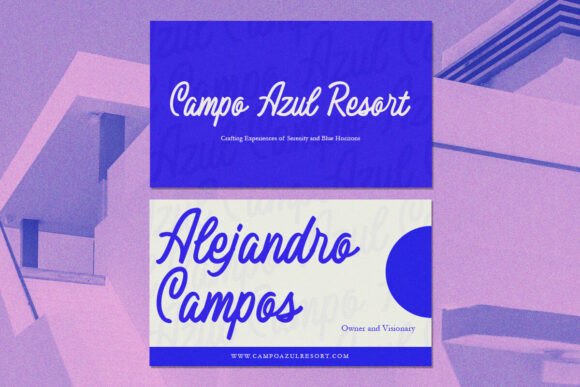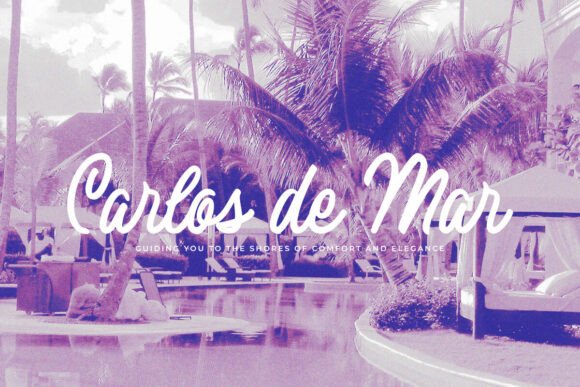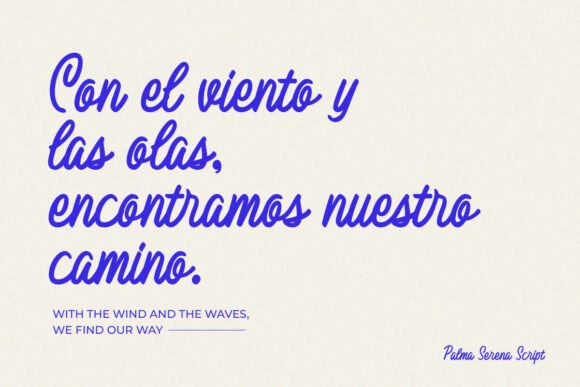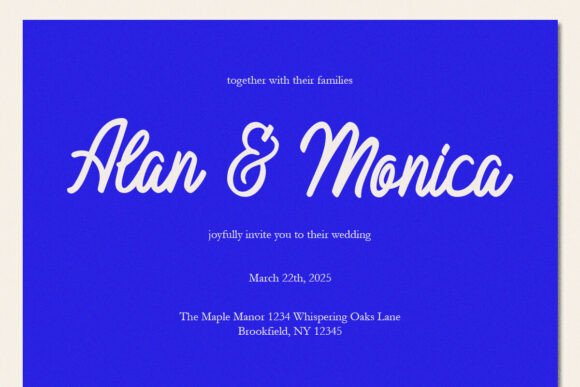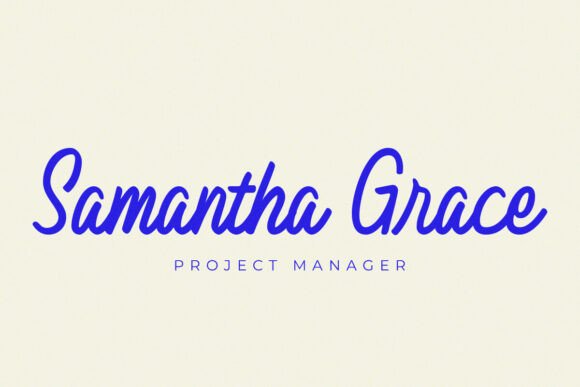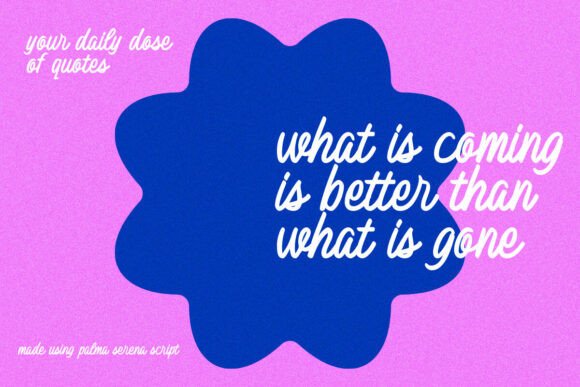
Introduction to Palma Serena Font
Have you ever stumbled upon a font that makes your design come alive? For me, it’s the moment when the perfect font clicks into place, and the entire project starts to take shape. It’s a feeling of excitement and relief, knowing that you’ve found the perfect design resource to bring your vision to life. And that’s exactly what happens when you discover the Palma Serena Font.
As a designer, you know how crucial it is to have a high-quality font that can elevate your work and make it stand out. The Palma Serena Font is a masterpiece that exudes elegance and warmth, making it perfect for a wide range of creative projects. With its smooth curves and organic flow, this font is ideal for branding, invitations, greeting cards, logo designs, and more.
Key Features of Palma Serena Font
- High-quality, elegant script font perfect for creative projects
- Large character set, including uppercase and lowercase letters, numbers, and punctuation marks
- Designed to work well at high resolutions, making it suitable for printing and digital applications
- Unique, flowing script style that adds a touch of sophistication to any creative project
Honest Review: Palma Serena Font
I recently stumbled upon the Palma Serena Font, and I must say it’s been a great addition to my design resource collection. This font is perfect for creating a high-quality and elegant look for any creative project.
- ✨ Transparent background: The Palma Serena Font has a transparent background, making it super easy to use in any design, from logos to graphics.
- ✨ High-quality design: The font itself is beautifully designed, with clean lines and a modern feel that’s sure to impress.
However, I do have to mention a few limitations ⚠️:
- ⚠️ Limited customization options: While the font is beautiful, it’s not super customizable, which might be a bummer for designers who like to experiment.
- ⚠️ Not suitable for all designs: The Palma Serena Font is more suited for elegant and sophisticated designs, so it might not be the best fit for more playful or edgy projects.
Overall, I’m really impressed with the Palma Serena Font. It’s a fantastic design resource that’s perfect for designers looking for a high-quality and elegant font for their next creative project.
The Palma Serena Font is ideal for:
- Food and beverage branding
- Travel and tourism marketing
- Event and party invitations